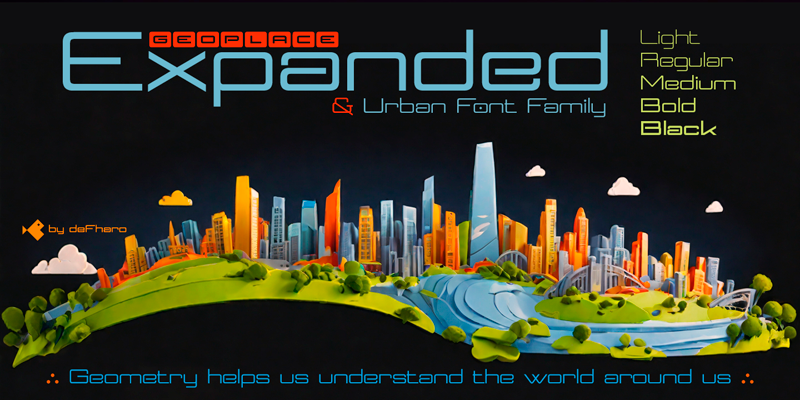
Preview and download Geoplace Font. Created by deFharo in Basic Sans serif styles with Free for personal use license.
An expanded proportion sans serif typeface family, imbued with futuristic urban style and technological inspiration, reflecting my passion for design and geometric precision to achieve unique aesthetics and exceptional legibility. ========================= DOWNLOAD FULL VERSIONS & LICENSES: https://defharo.com/fonts/geoplace/ ========================= |